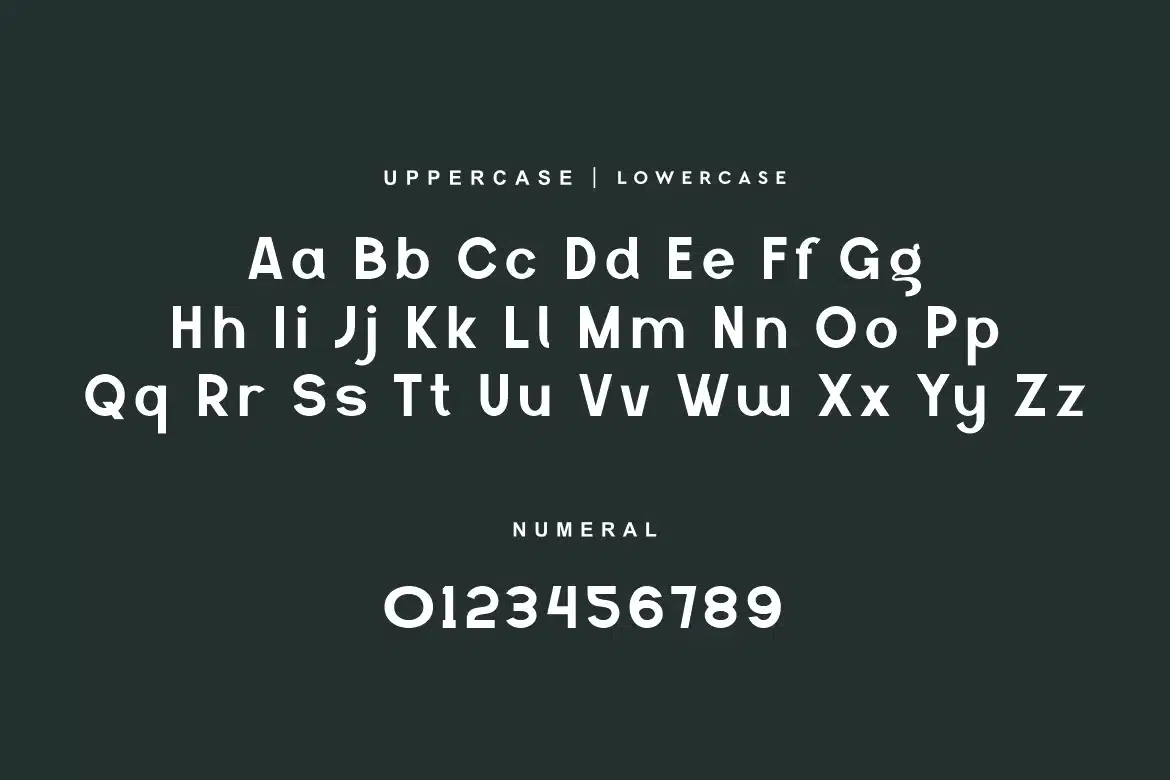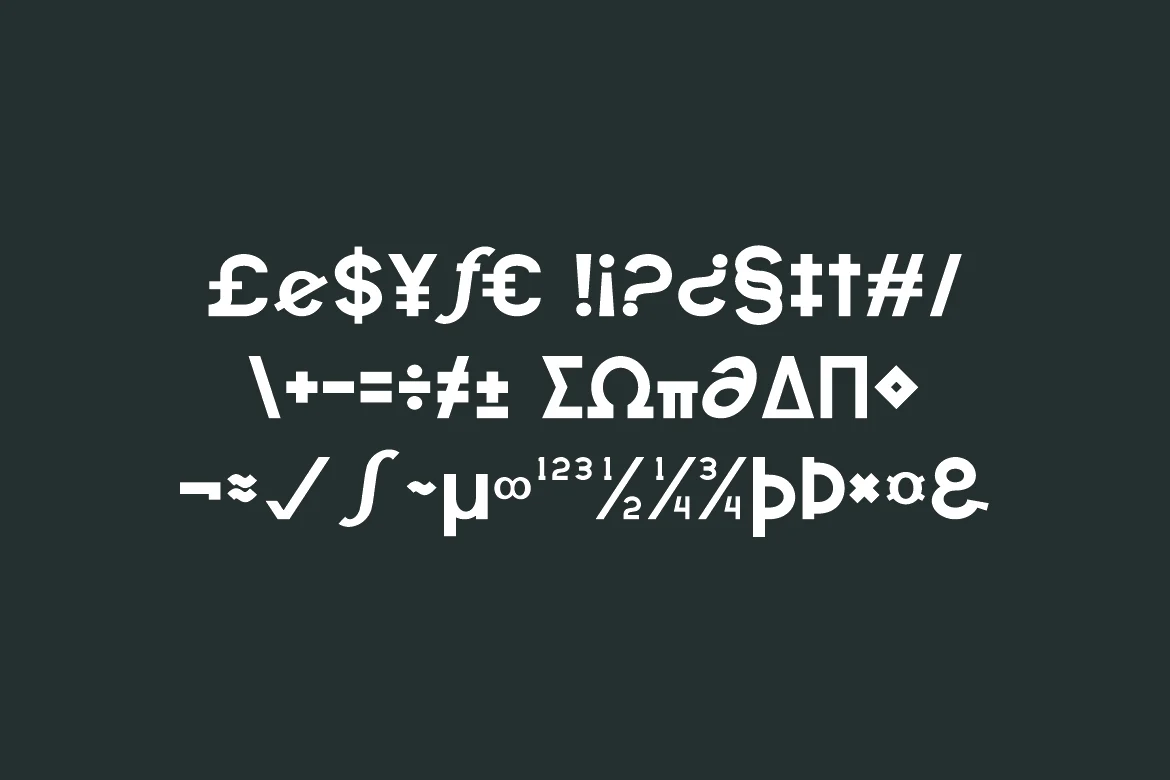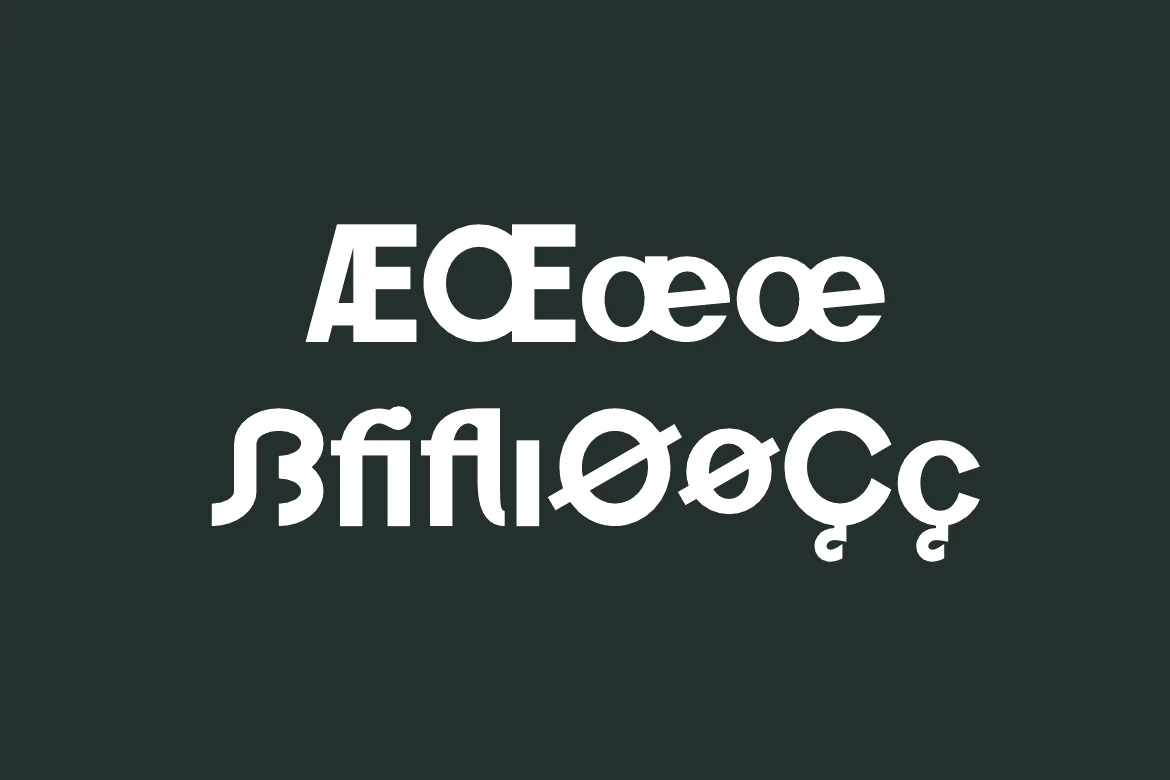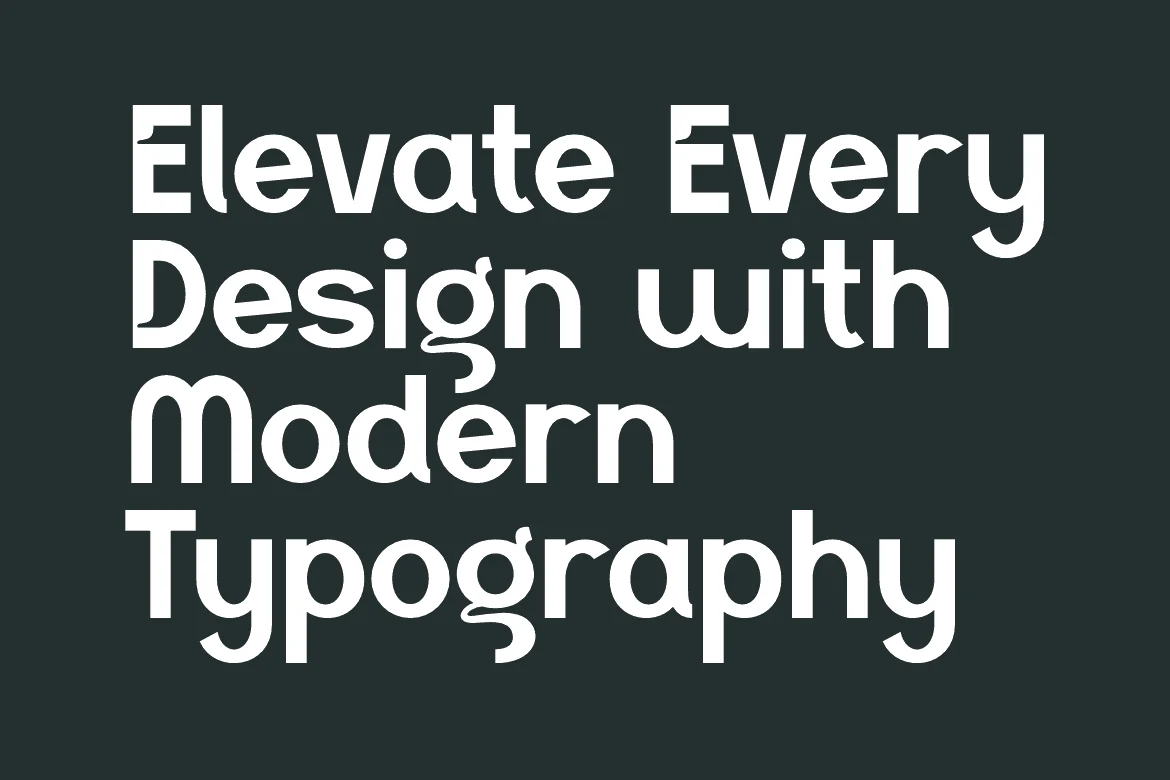
Gagfir – Modern Branding Font
Gagfir Font is a bold and authentic display typeface.
It’s perfect for various branding projects such as logos, modern designs,
and more. This font stands out beautifully in a wide range of contexts.